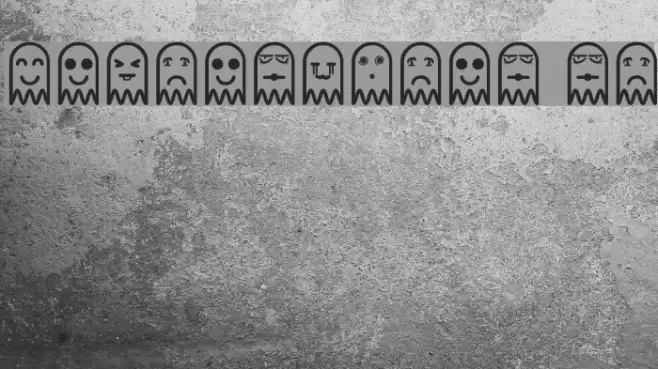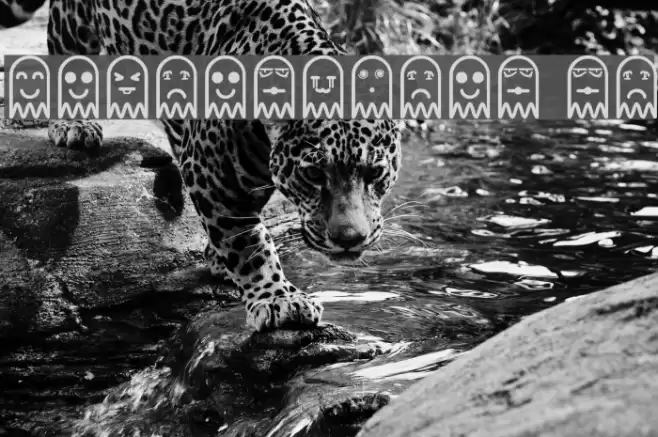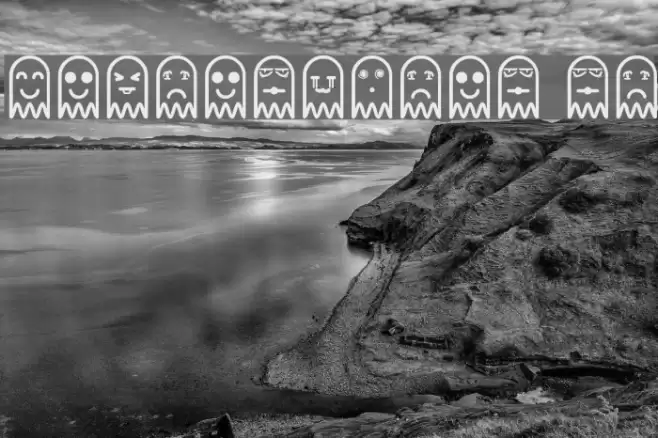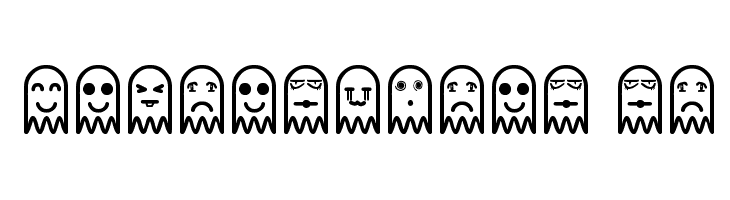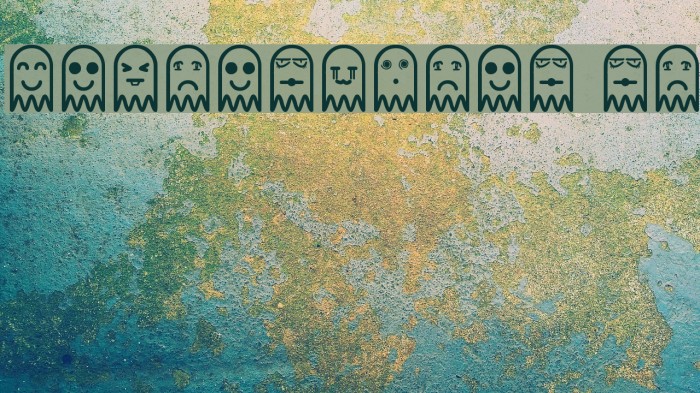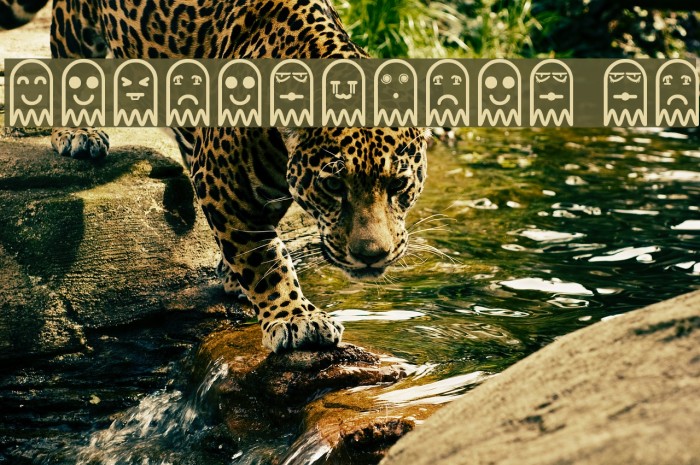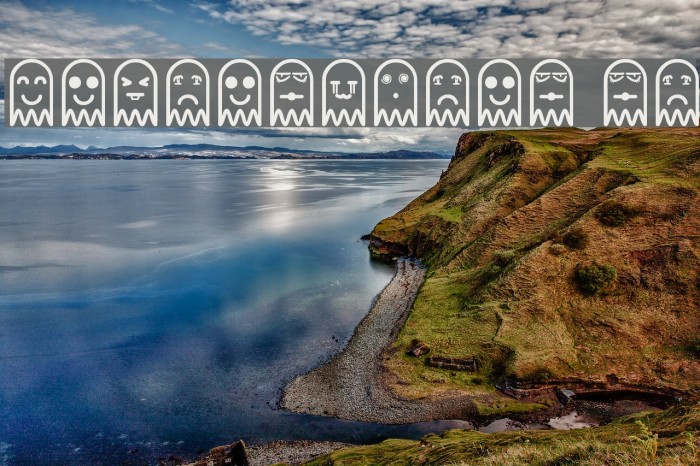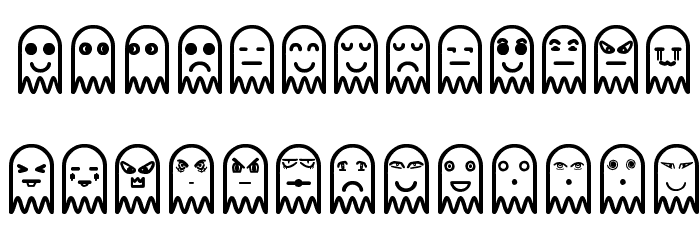
Fantasmytas St Font
Fantasmytas St Description
This is not a traditional font but rather a collection of ghost-like characters, each with a unique facial expression. The characters are designed to resemble playful, cartoonish ghosts with varying emotions, from happy and sad to angry and surprised. The outlines are bold and consistent, giving each character a distinct and easily recognizable shape. The style is whimsical and fun, making it suitable for creative and informal projects. The characters are evenly spaced, maintaining a uniform appearance across the set.
A playful set of ghost-like characters with various facial expressions from Dingbats fonts.
- Proposed Projects: Ideal for Halloween-themed designs, children's books, playful posters, or any project requiring a whimsical touch.
- Use Case: Logos, Posters, Themed Events